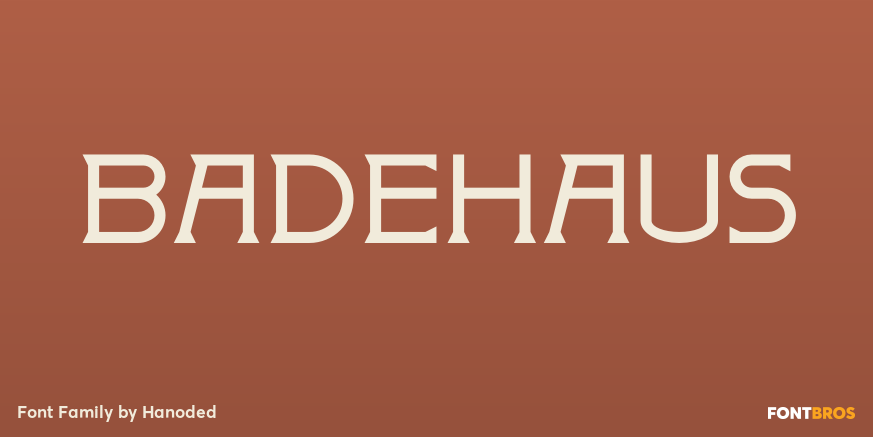
Badehaus
About Badehaus
In the German city of Bad Neuenahr you can visit a spa called Thermal Badehaus. This beautiful art deco building has an even more beautiful art deco lettering covering its facade. I had to work with only a couple of glyphs (?Thermal Badehaus? to be exact)…